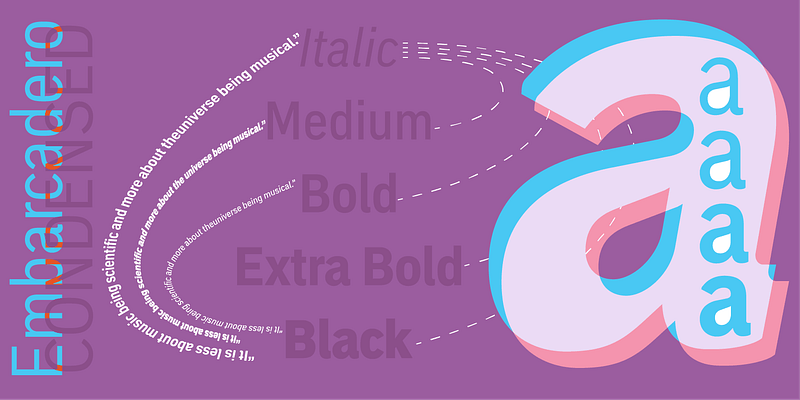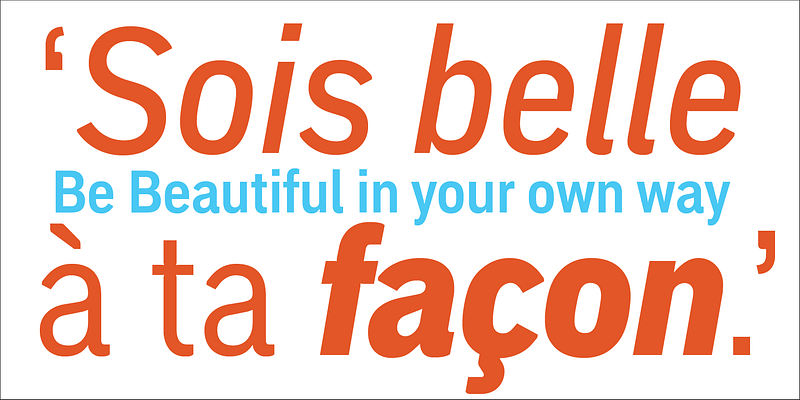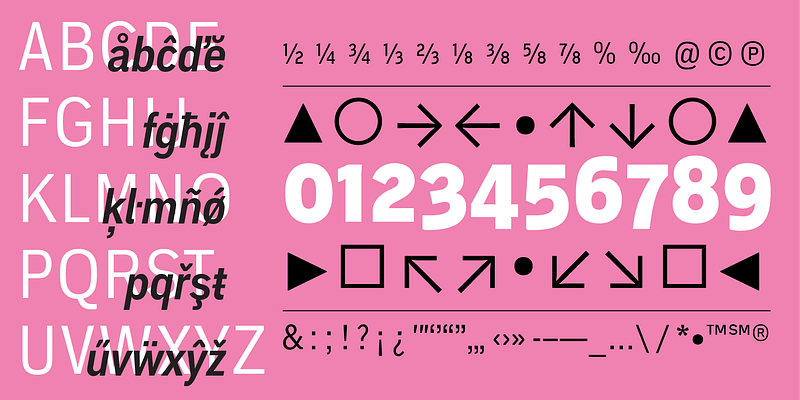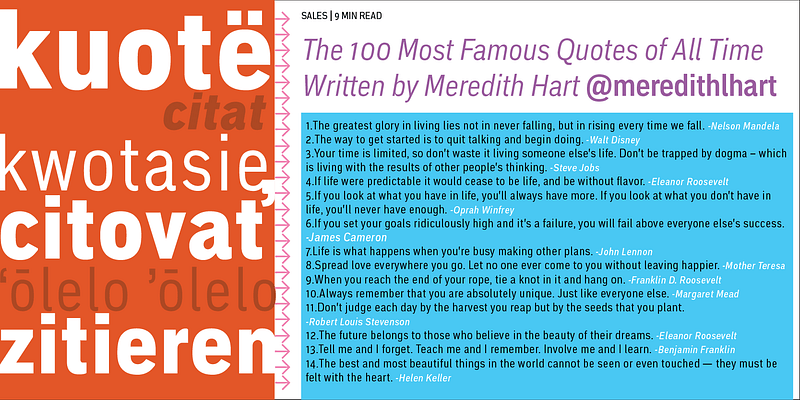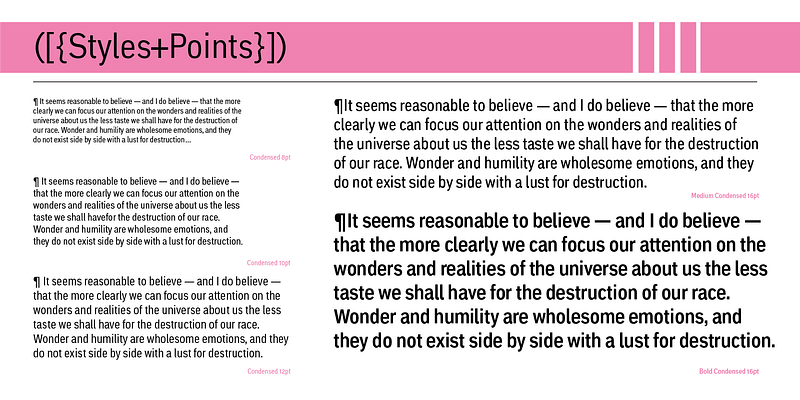
MVB Embarcadero lies in a space between grotesque sans serifs and the vernacular signage lettering drawn by engineers. It’s a style that happens to convey credibility and forthrightness without pretense—it’s anti-style, actually. All of this makes for the most versatile of typefaces, capable of delivering any kind of message while staying out of the way.
As is often the case with a type design that develops over several years, Embarcadero isn’t the realization of a specific concept. In the ’90s Mark van Bronkhorst began digitizing a blocky slab serif from the Victorian era, which was then set aside for many years. He later revisited the design, paring it down to its bare essentials, and as more time passed, it evolved from a grid-based outline to curves that echoed the rigid skeleton of the original. Eventually it became a complete family with all the readability requirements of a text sans serif, yet maintaining the subtle eccentricities of its inspiration.
Functionally, the Embarcadero family is as adaptable as its design. The OpenType Pro set of 20 fonts contains two widths and five weights, each with italics, small caps, a full set of figures, bullets and arrows, and support for most Latin-based languages. In all, Embarcadero is suitable for headlines or text. And—thanks to its simple, square form—it’s ideal for type on screen too.